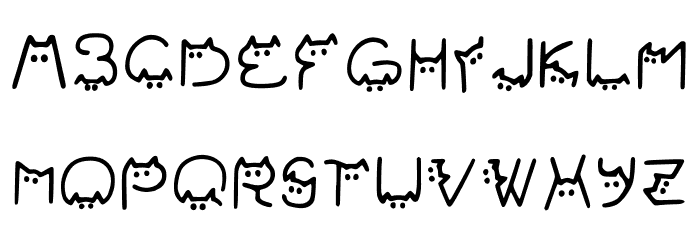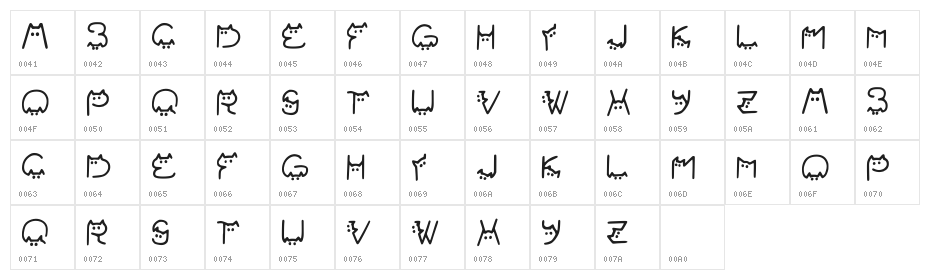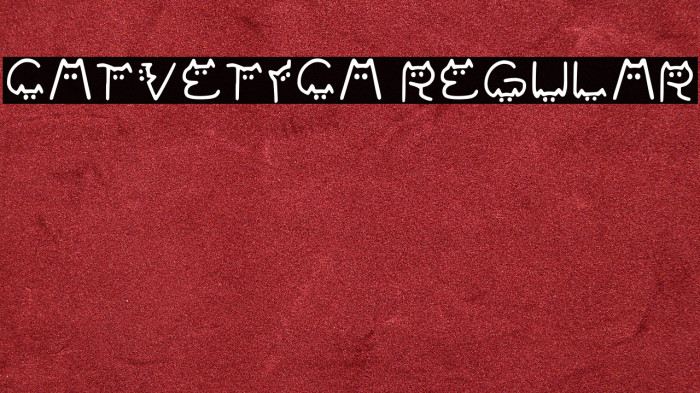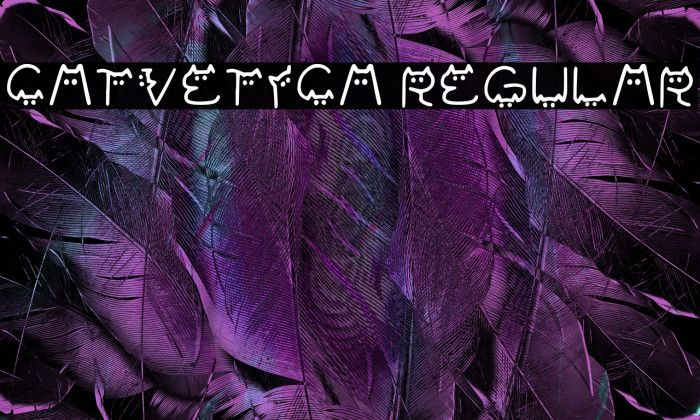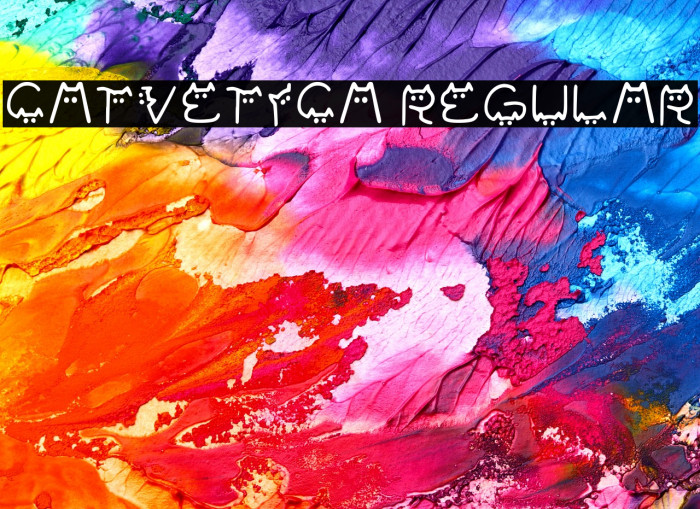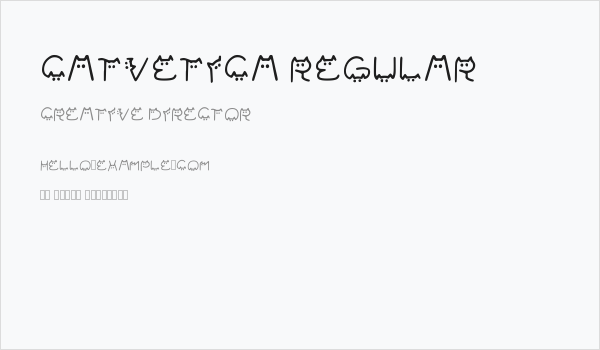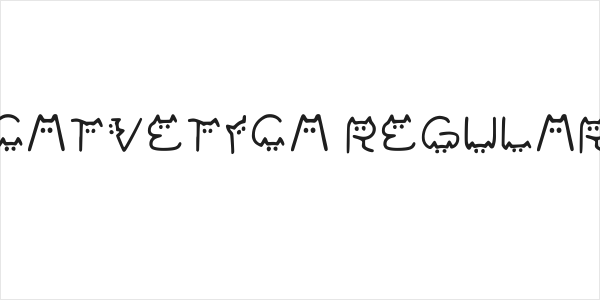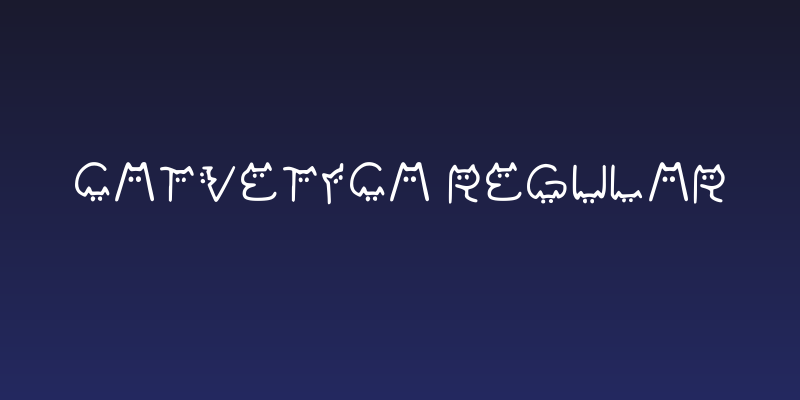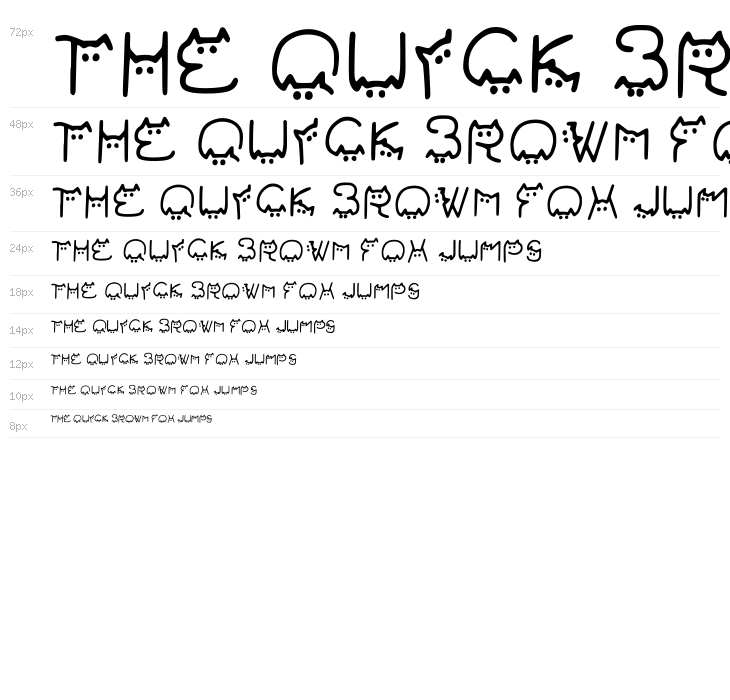
Catvetica Regular Font
Catvetica Regular Description
This playful and whimsical font features a unique design where each character is creatively integrated with cat-like elements. The letters are adorned with ears and facial features, giving them a charming and distinctive appearance. The strokes are consistent in thickness, providing a balanced look across all characters. This font is perfect for projects that require a fun and lighthearted touch, appealing to audiences who appreciate quirky and imaginative designs.
| Use Case | Logos, Posters, Children's Books |
| Proposed Projects | Ideal for children's books, pet-related branding, playful posters, and novelty items. |